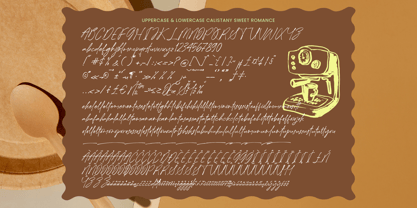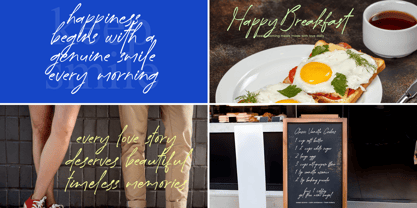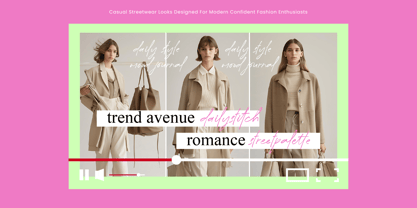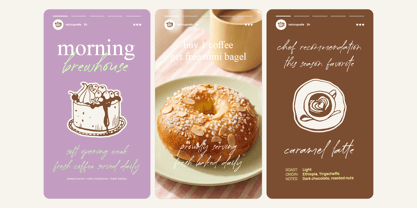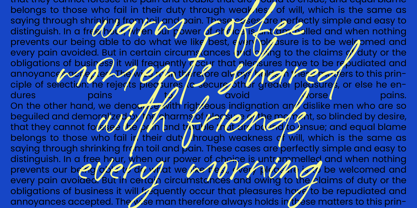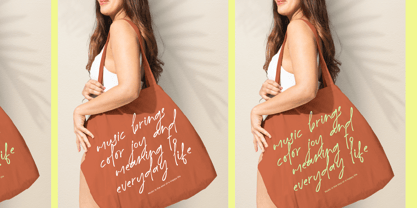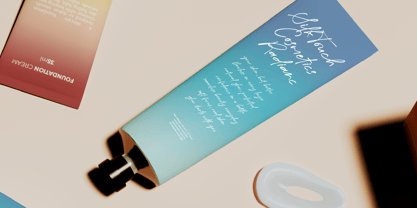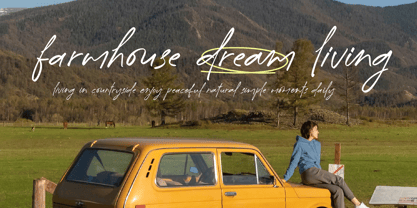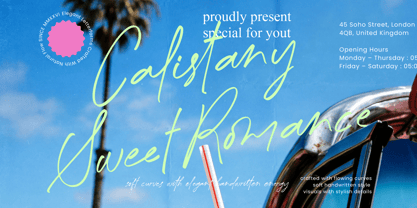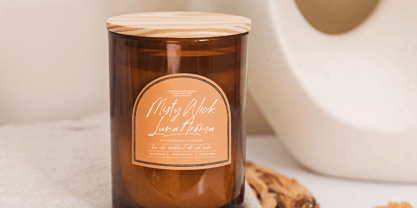
Calistany Sweet Romance
by Letterena Studios
The Calistany Sweet Romance Font Family was designed by Heru Utama Putra and published by Letterena Studios. Calistany Sweet Romance contains 2 styles and family package options. More about this family
Calistany Sweet Romance - Natural Handwritten Font. This masterfully crafted typeface captures the essence of organic penmanship, offering a sophisticated aesthetic that feels both personal and professional. Its fluid letterforms and natural rhythm provide an unmistakable sense of elegance, making it an essential tool for designers seeking to add a human touch to their digital compositions and artistic projects.
Engineered for high-impact visual storytelling, Calistany Sweet Romance - Natural Handwritten Font is the definitive choice for luxury branding and high-end packaging. This typeface is perfect for wedding stationery, editorial design, social media layouts, and bespoke logo development. By blending a modern script vibe with a timeless appeal, it ensures your message resonates with clarity and grace, making it a versatile design solution for any premium lifestyle brand.